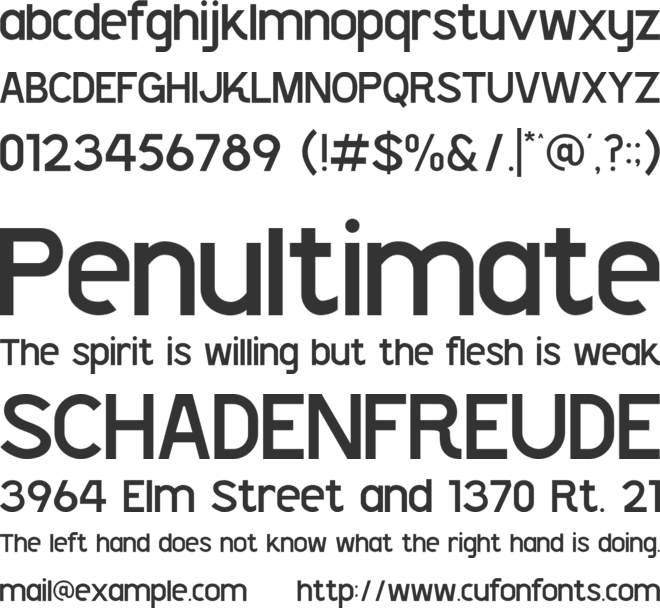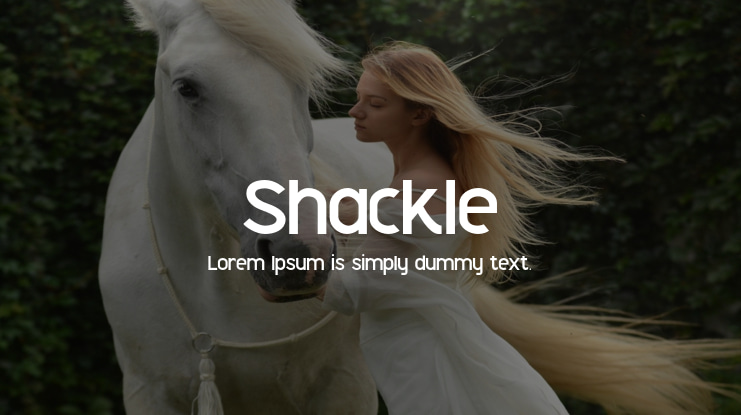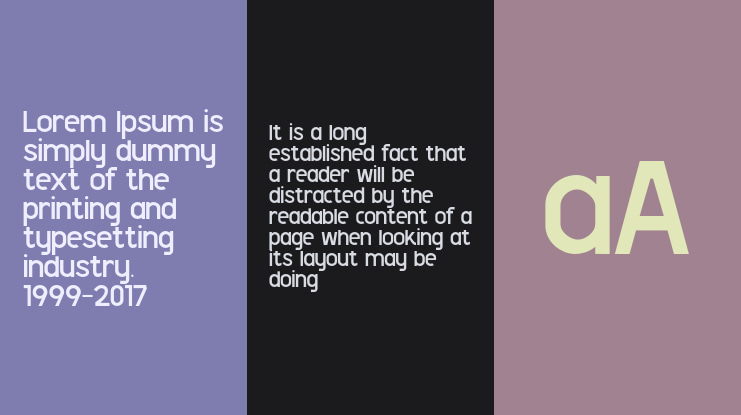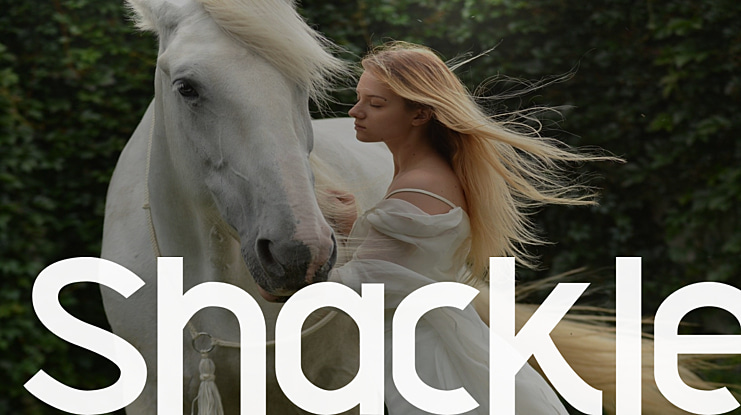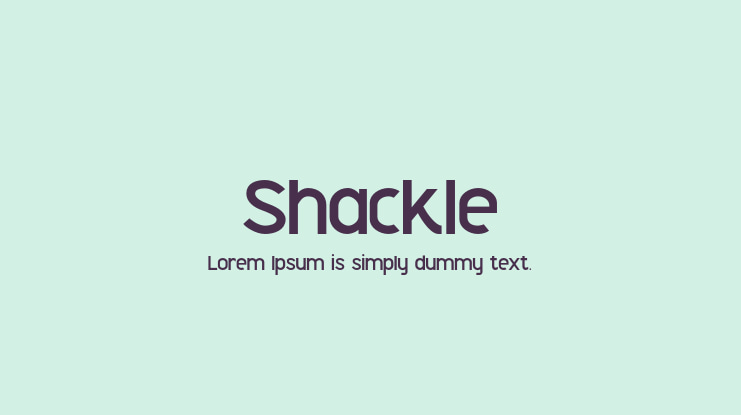
Shackle Font Family
The Shackle family is a font inspired by someone's rigidity towards something that always puts forward their own desires and is perfectionist in nature. This font I created is meaningful & very versatile, it goes well with various designs, elevating them to the highest level. Add this font to your favorite creative ideas and see the results!
Features : Uppercase, Lowercase, Numerical, & Multilingual Support